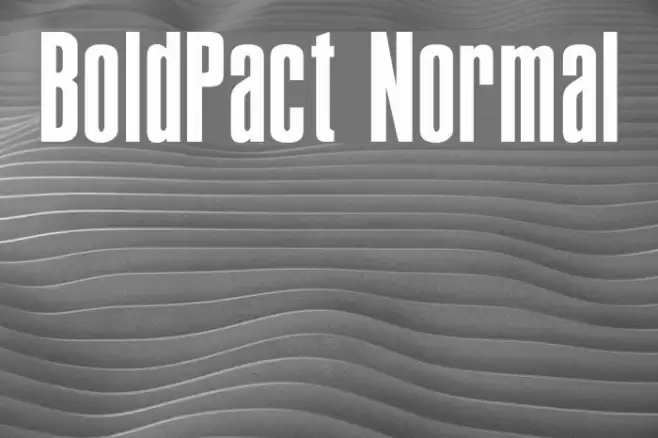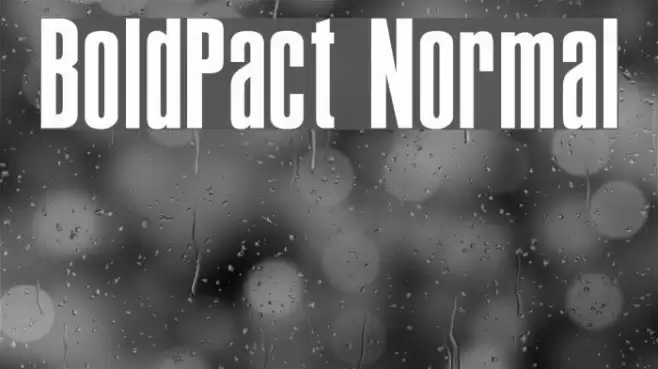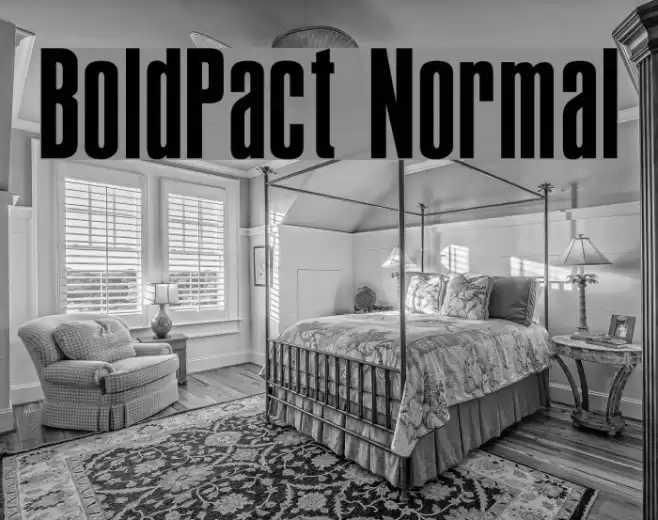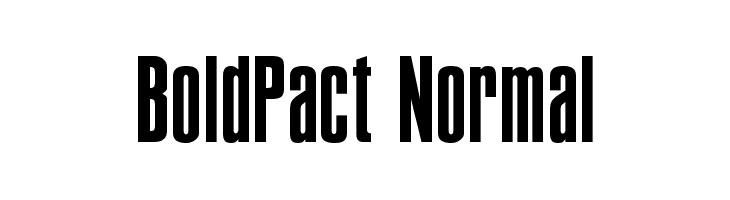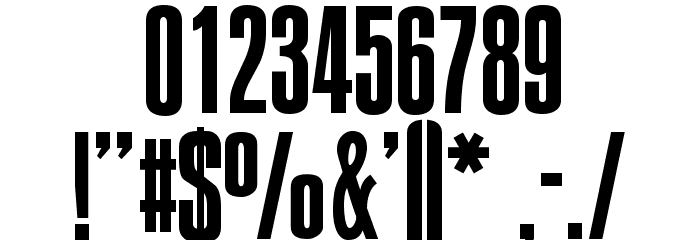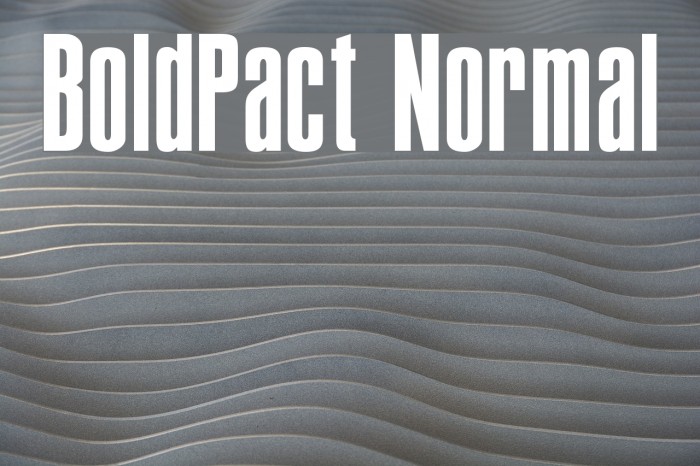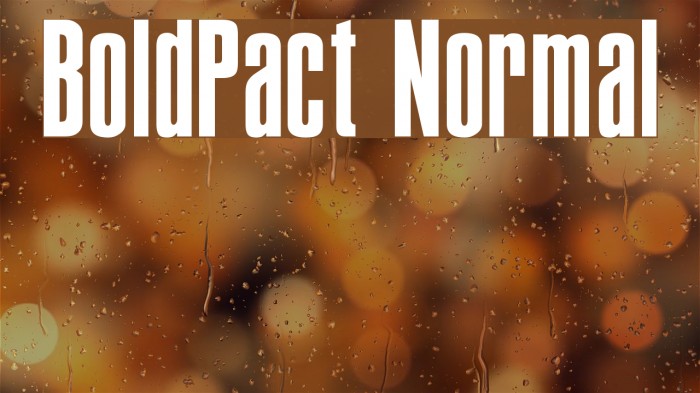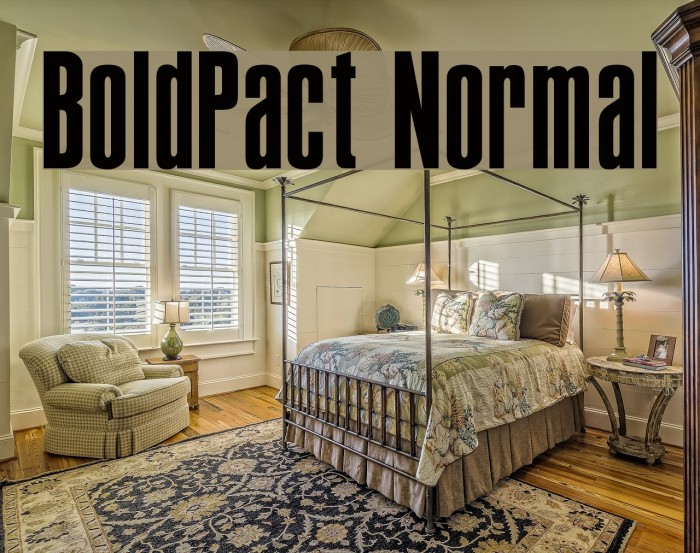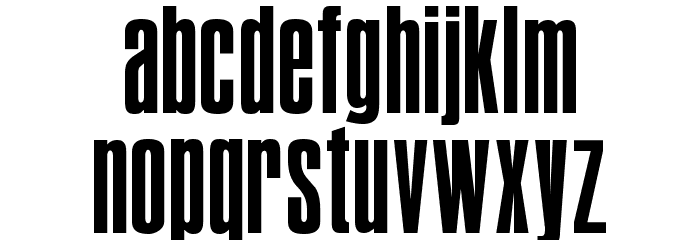
BoldPact Normal Font
BoldPact Normal Description
This font features a bold and impactful design with strong vertical lines and minimal contrast between thick and thin strokes. The characters are tall and condensed, giving a powerful and assertive appearance. The uppercase and lowercase letters maintain a consistent style, emphasizing uniformity and strength. The numerals and special characters are equally bold, ensuring readability and presence. This font is ideal for making a statement, with its striking and commanding aesthetic.
A bold, condensed font with strong vertical lines and minimal contrast from Uncategorized fonts.
- Proposed Projects: Ideal for headlines, posters, branding, and advertising where a strong impact is needed.
- Character Spacing: Tight